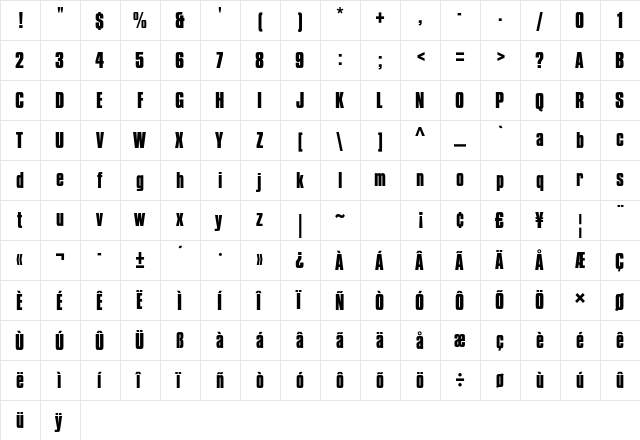
Compacta Std Bold
| Designer | Fred Lambert |
Design Context for Compacta Std Typeface
Compacta Std offers clean, dependable letterforms without strong stylistic allegiance, making it a practical choice for designers who need flexibility. The heavy weight commands attention and anchors typographic hierarchies. Its narrow stance lets it pack a punch even in space-constrained designs.